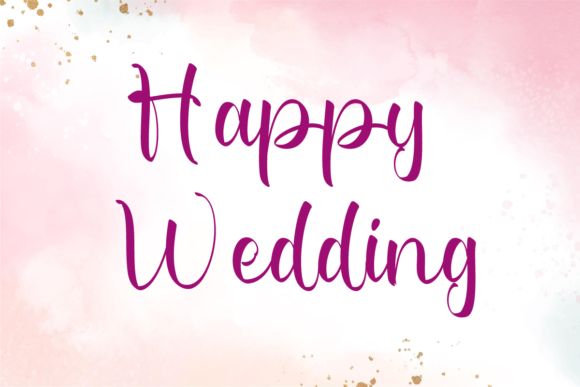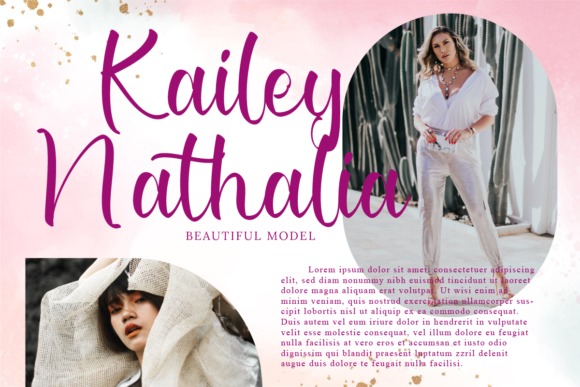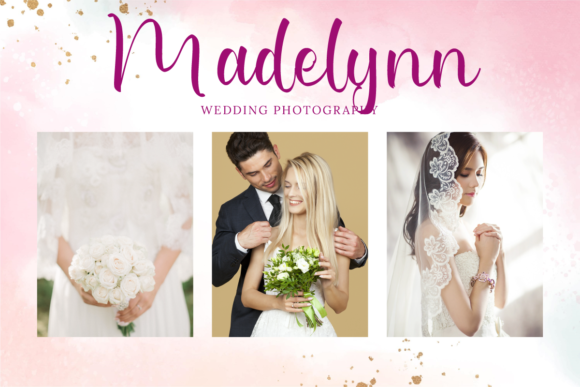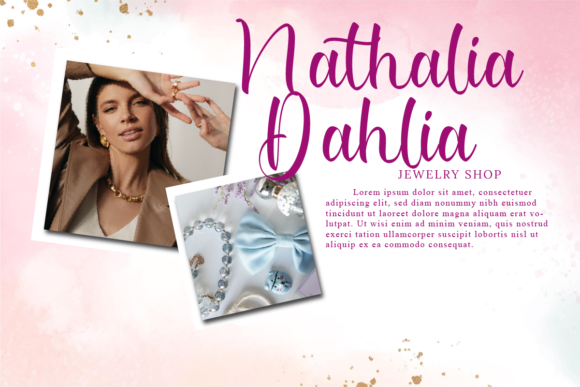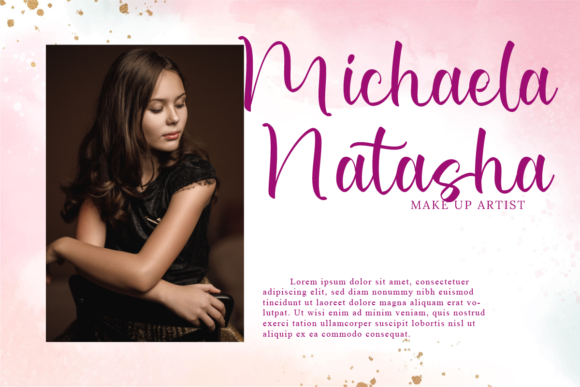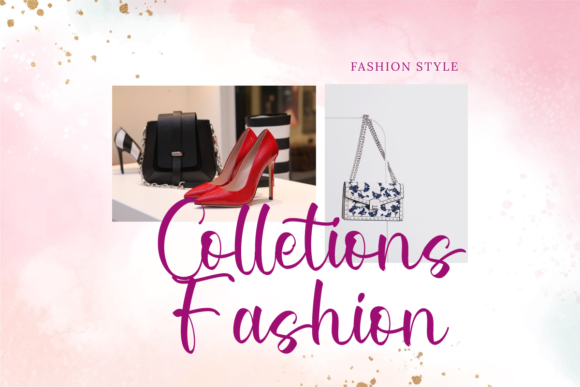
Introduction to Michaela Roselyn Font
Have you ever stared at a blank page, trying to decide on the perfect font for your latest creative project? The cursor blinks, taunting you with its silence. You’ve scrolled through font libraries, only to be left uninspired by the same old options. That’s when it happens – a spark of creativity ignites, and you remember the Michaela Roselyn Font.
This high-quality font is more than just a pretty face; it’s a design resource that can elevate your creative project to new heights. With its unique, handwritten style, Michaela Roselyn Font is perfect for adding a touch of personality to your work. Whether you’re designing a wedding invitation, creating social media graphics, or packaging a product, this font is sure to make a statement.
Key Features of Michaela Roselyn Font
- High-quality, professional design for creative projects and personal use
- Unique, elegant script font with a transparent background, ideal for adding a touch of sophistication
- Includes a range of characters, including uppercase and lowercase letters, numbers, and punctuation marks
- Perfect for various design applications, including invitations, logos, and branding materials
Honest Review: Michaela Roselyn Font
As a designer, I’m always on the lookout for high-quality fonts to elevate my creative projects. I recently stumbled upon the Michaela Roselyn Font, and I’m excited to share my thoughts on this design resource.
What works well is the beautiful, elegant script style that’s perfect for titles and headings. The font is available for free download, which is a huge plus for designers on a budget. The transparent background makes it easy to layer over images and textures, giving your design a professional look.
The Michaela Roselyn Font is a solid choice for any design project, from wedding invitations to branding materials. Here are some key features that make it a great addition to your design arsenal:
- High-quality, elegant script style
- Perfect for titles, headings, and branding materials
My only gripe is that the font might be a bit too ornate for some designs, so use it sparingly to avoid overwhelming the layout. Overall, I’m impressed with the Michaela Roselyn Font and would definitely recommend it to fellow designers.
Michaela Roselyn Font is a versatile font that can be used in a variety of creative projects, including wedding invitations, business cards, and social media graphics. Its high-quality design and transparent background make it perfect for use in a range of design applications.